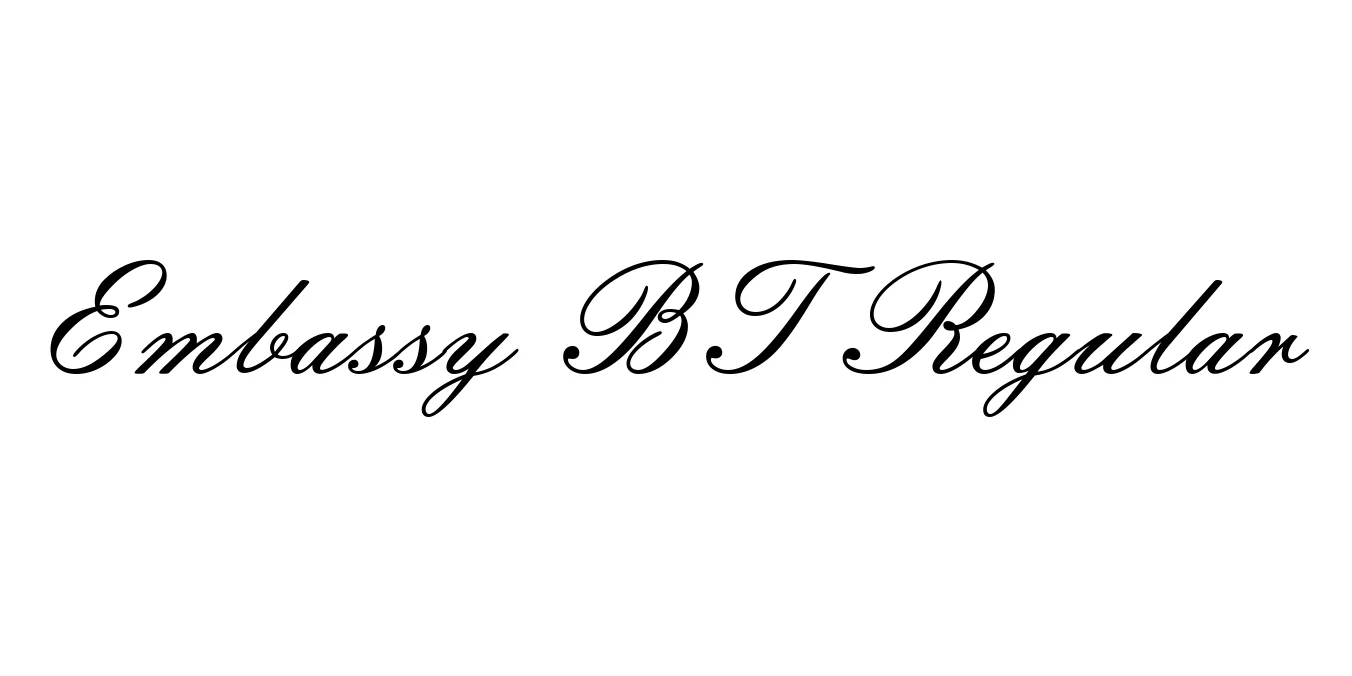
Embassy BT Regular
Designed by Morris Fuller Benton
| Similar Fonts | Shelley Allegro, Snell Roundhand, Bickham Script |
Embassy BT is an elegant, traditional script typeface originally designed by Morris Fuller Benton in 1930 for the American Type Founders (ATF). This font is characterized by its flowing, connected letters that emulate high-end formal calligraphy, possessing a classic charm that makes it a staple for sophisticated stationery and formal invitations.
The digital version by Bitstream preserves the intricate strokes and rhythmic balance of the original metal type. It is widely recognized for its refined aesthetic, often used in contexts where a sense of tradition and prestige is required. Its ornate capitals and graceful lowercase ligatures create a seamless, hand-written appearance that remains timeless in the world of typography.
Embassy BT Regular Best Uses
Perfect for invitations, RSVP cards, and envelopes due to its romantic and formal feel.
Ideal for diplomas and official awards to convey a sense of prestige and history.
Excellent for luxury brands, high-end boutiques, and artisanal logos requiring a personal touch.